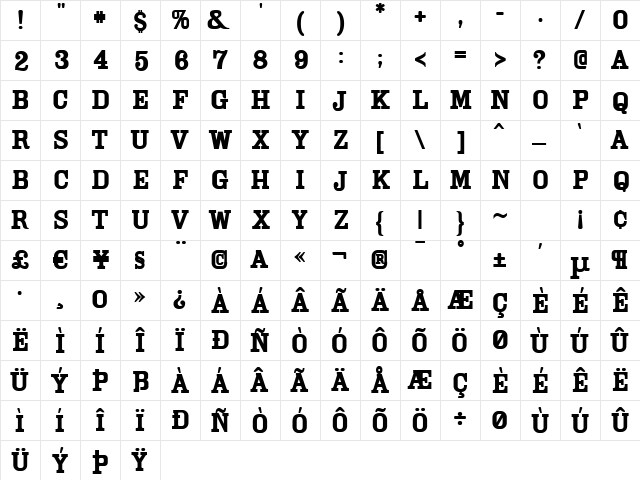
Cam Regular
| Foundry | YouWorkForThem |
| Designer | Michael Cina |
Design Context for Cam Typeface
Cam takes a measured approach to typography — its balanced proportions and neutral character make it a reliable workhorse for both digital and print work.